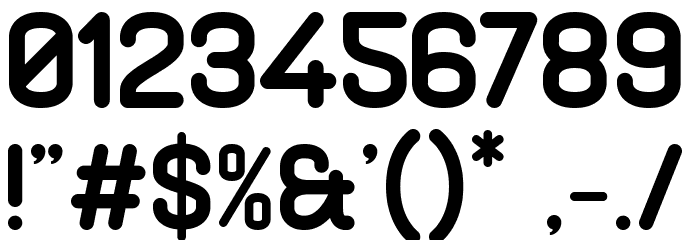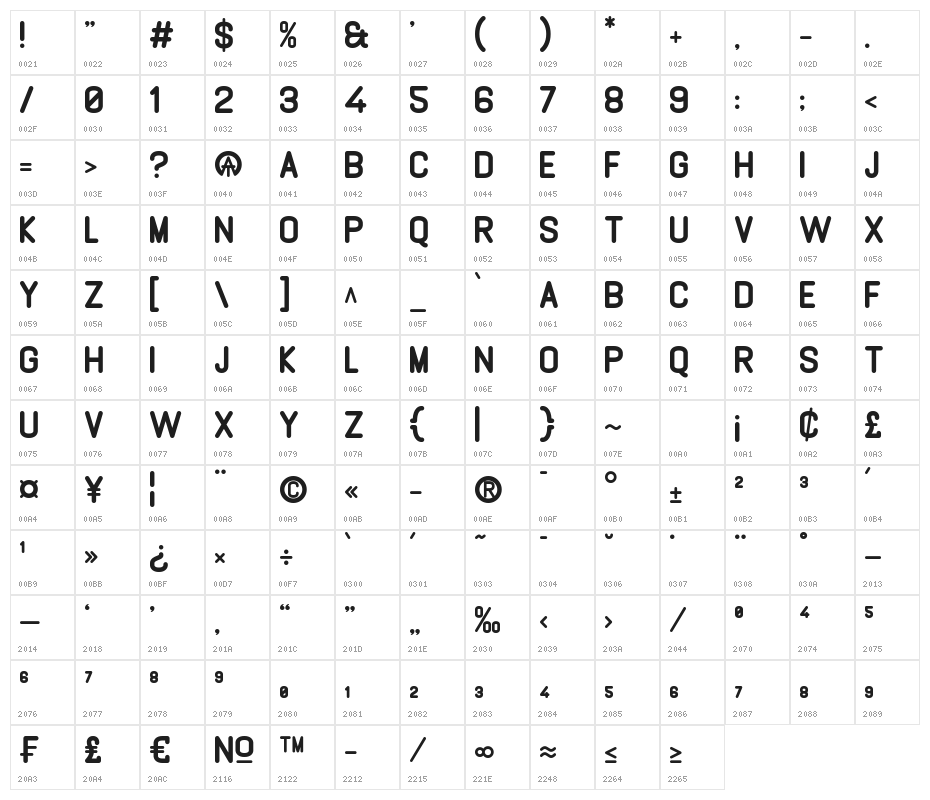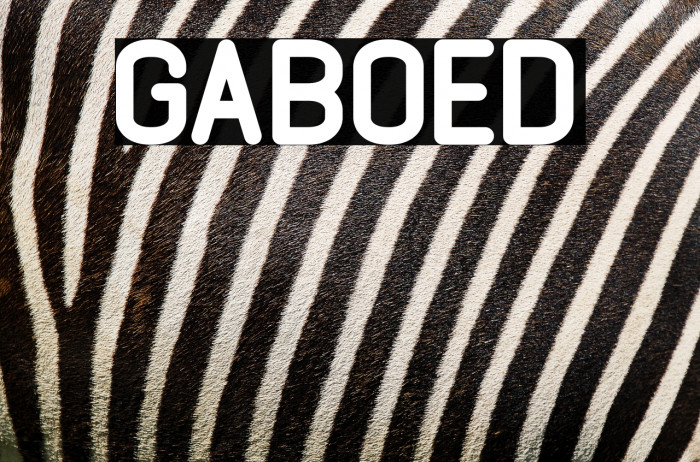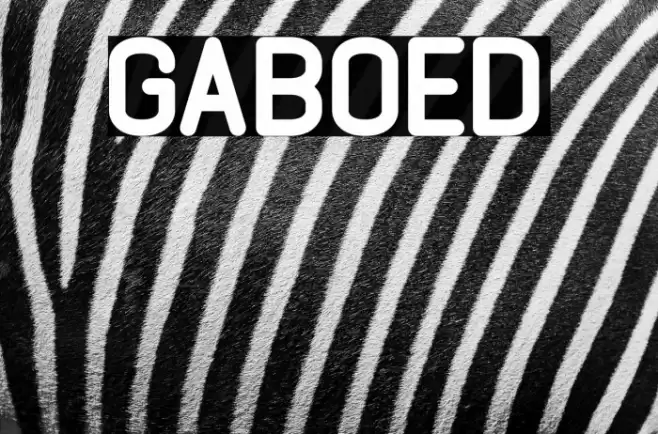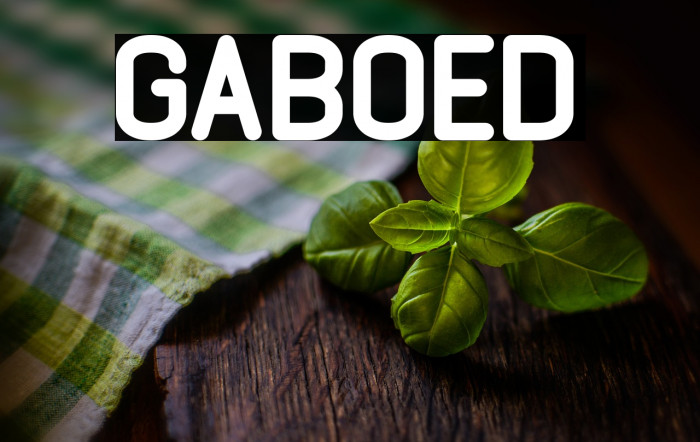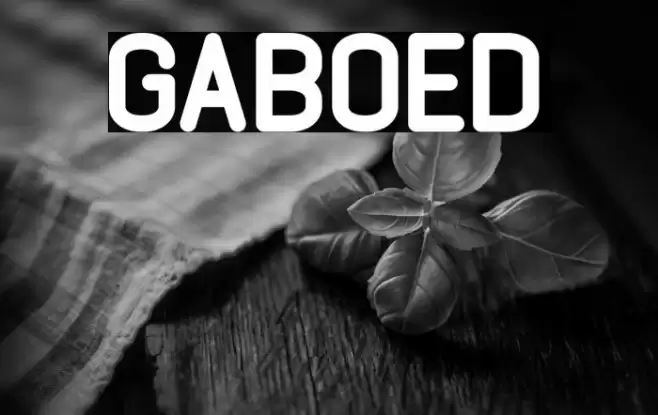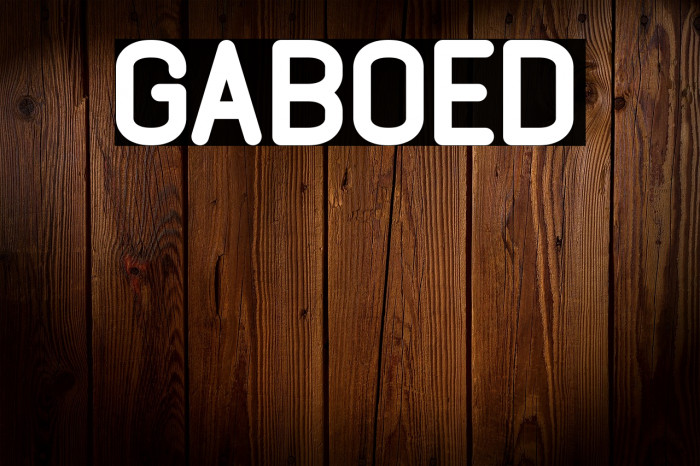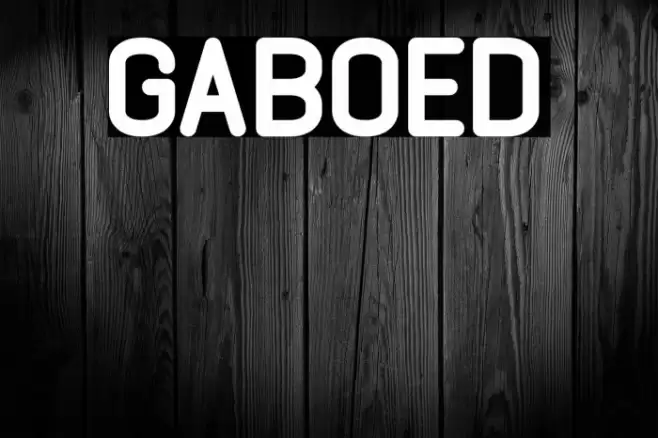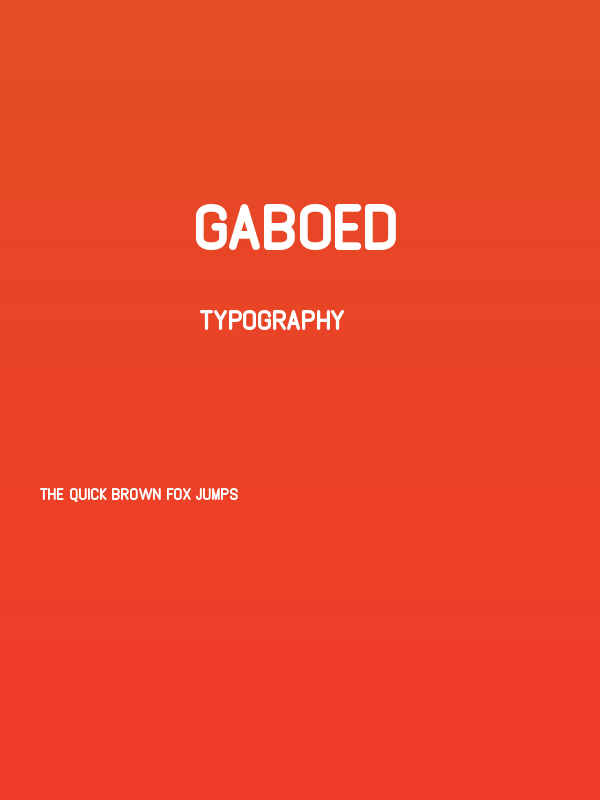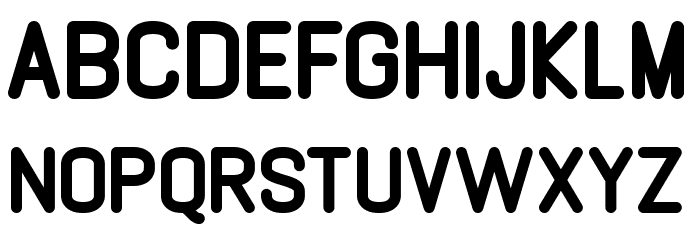
GABOED Font
GABOED Description
This font features a bold and modern sans-serif design with rounded edges that give it a friendly and approachable appearance. The uniform stroke width across all characters ensures a clean and consistent look, making it highly legible. The characters are well-proportioned, with a slightly condensed width that allows for efficient use of space without sacrificing readability. The numerals and special characters maintain the same stylistic features, ensuring a cohesive appearance throughout. This font is versatile and can be used in various design contexts, from digital to print.
| Proposed Projects | Ideal for branding, advertising, digital interfaces, and signage due to its clarity and modern appeal. |